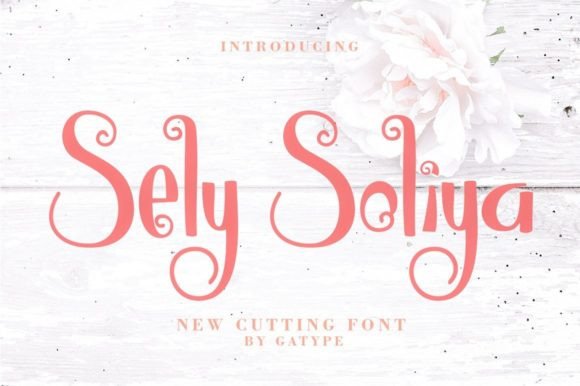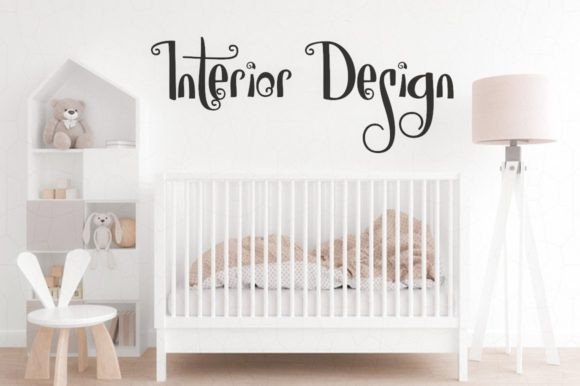
About Sely Soliya Font
“Sely Soliya” is a modern and stylish font that presents a contemporary aesthetic, making it an ideal choice for a wide range of design purposes. Its versatility extends to branding, invitations, stationery, wedding designs, social media posts, advertisements, product packaging, product designs, labels, photography, watermarks, special events, and more.
This font is tailored to meet the demands of modern design, providing a sleek and sophisticated appearance. Whether you’re working on branding materials, social media graphics, or special event invitations, “Sely Soliya” adds a touch of elegance and a modern flair to your projects.
The font’s versatility shines through in its application to various design contexts, from product labels to watermarks and everything in between. Its contemporary look ensures that it aligns well with current design trends, making it a valuable asset for designers looking to create impactful and visually appealing content.
Notably, “Sely Soliya” is encoded with PUA Unicode, granting easy access to additional characters without the need for special software. This feature enhances the user experience, allowing designers to explore a variety of characters and design elements seamlessly.
In summary, “Sely Soliya” is more than just a font; it’s a modern design tool that enhances the visual appeal of your creative projects. Whether you’re creating branding materials, social media content, or special event invitations, let “Sely Soliya” be the font that adds a contemporary and stylish touch to your designs.